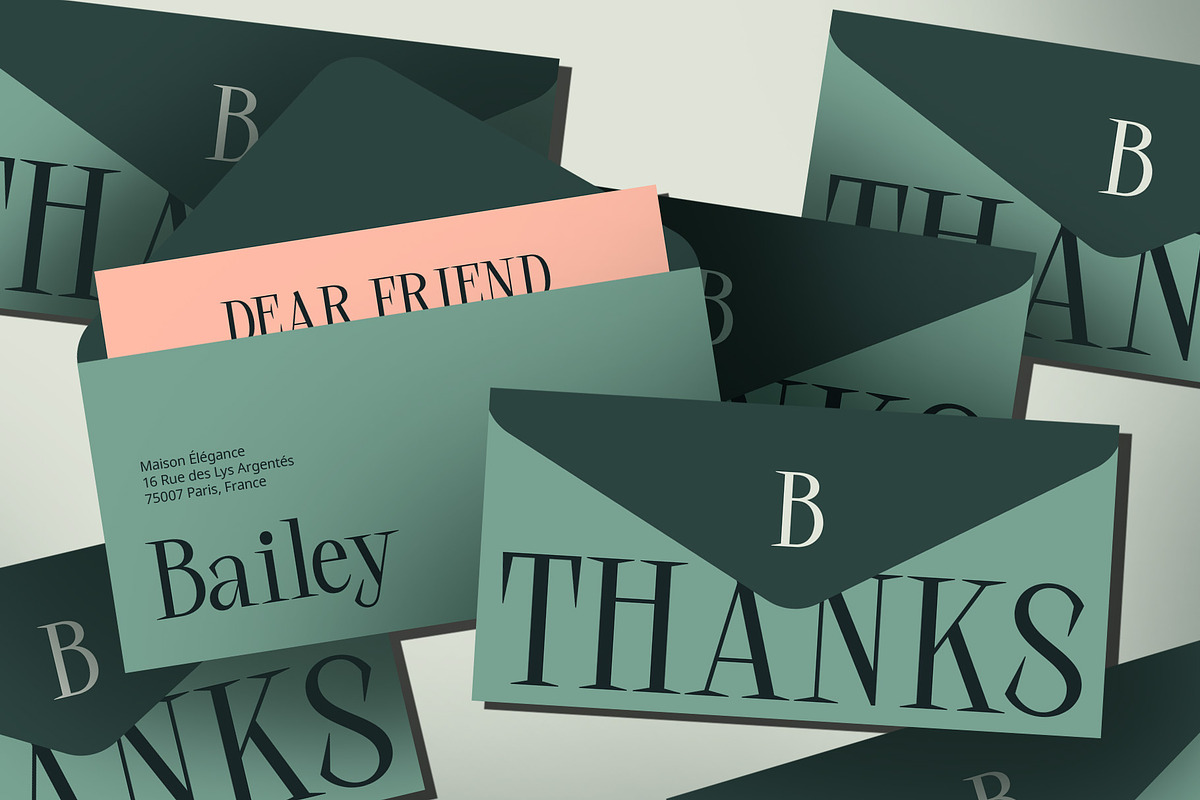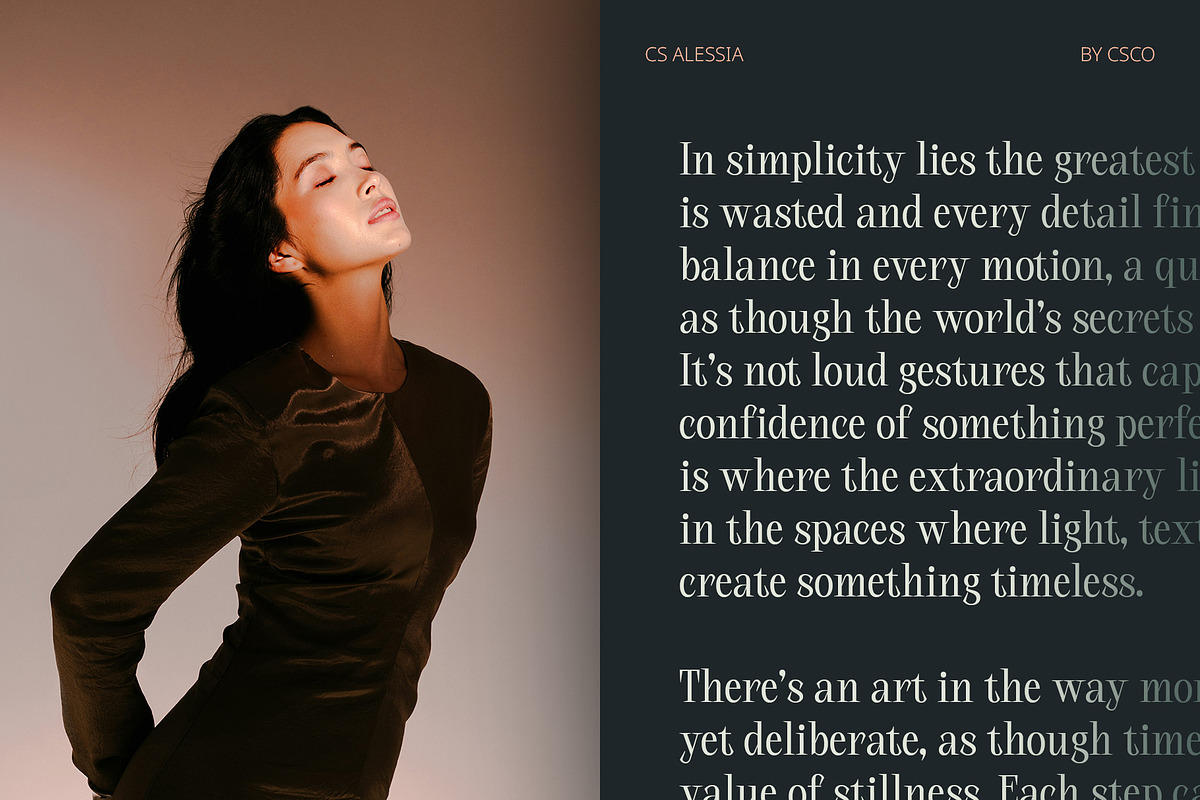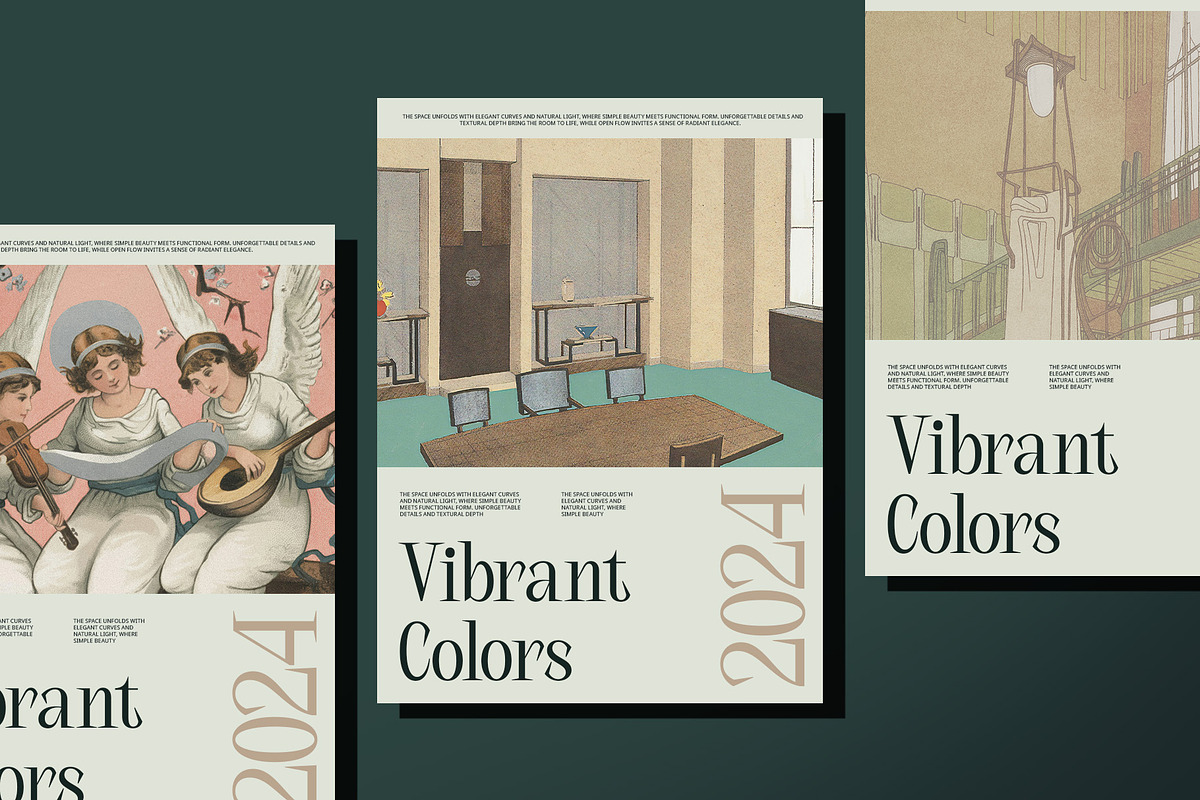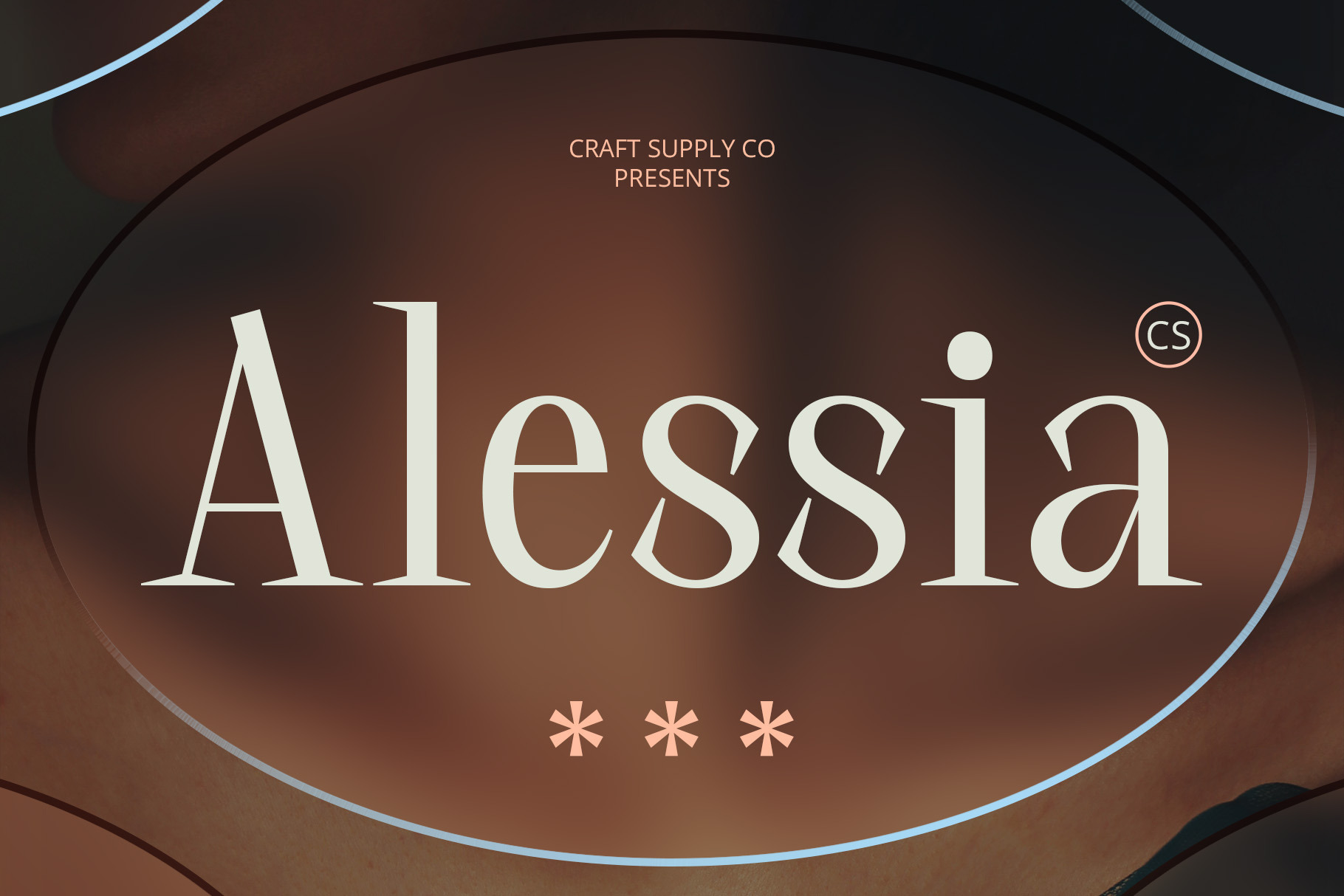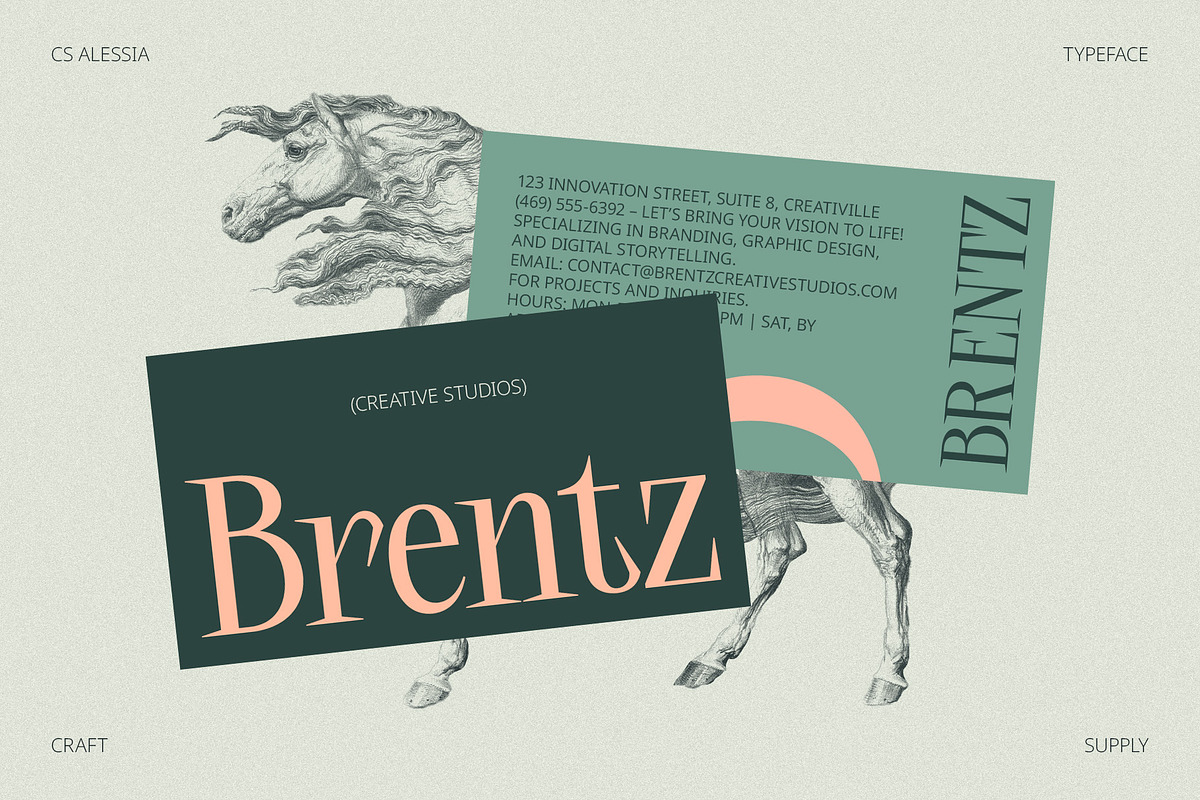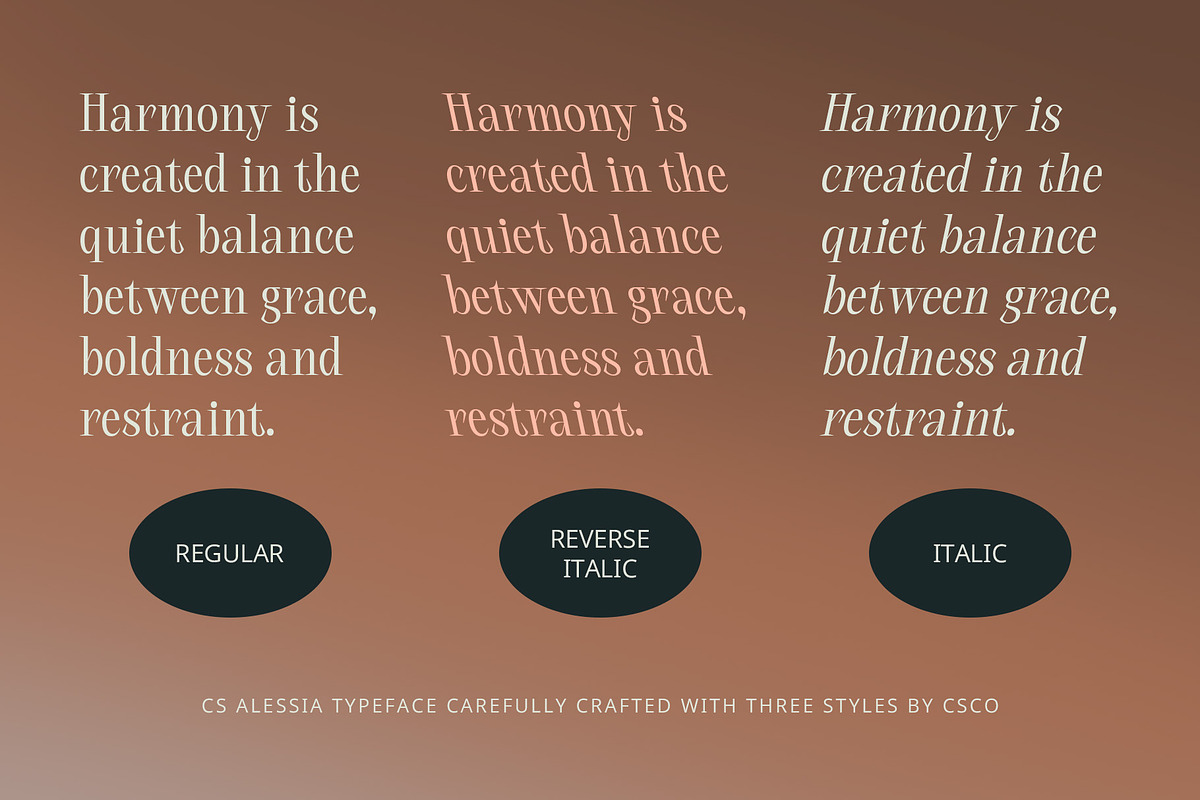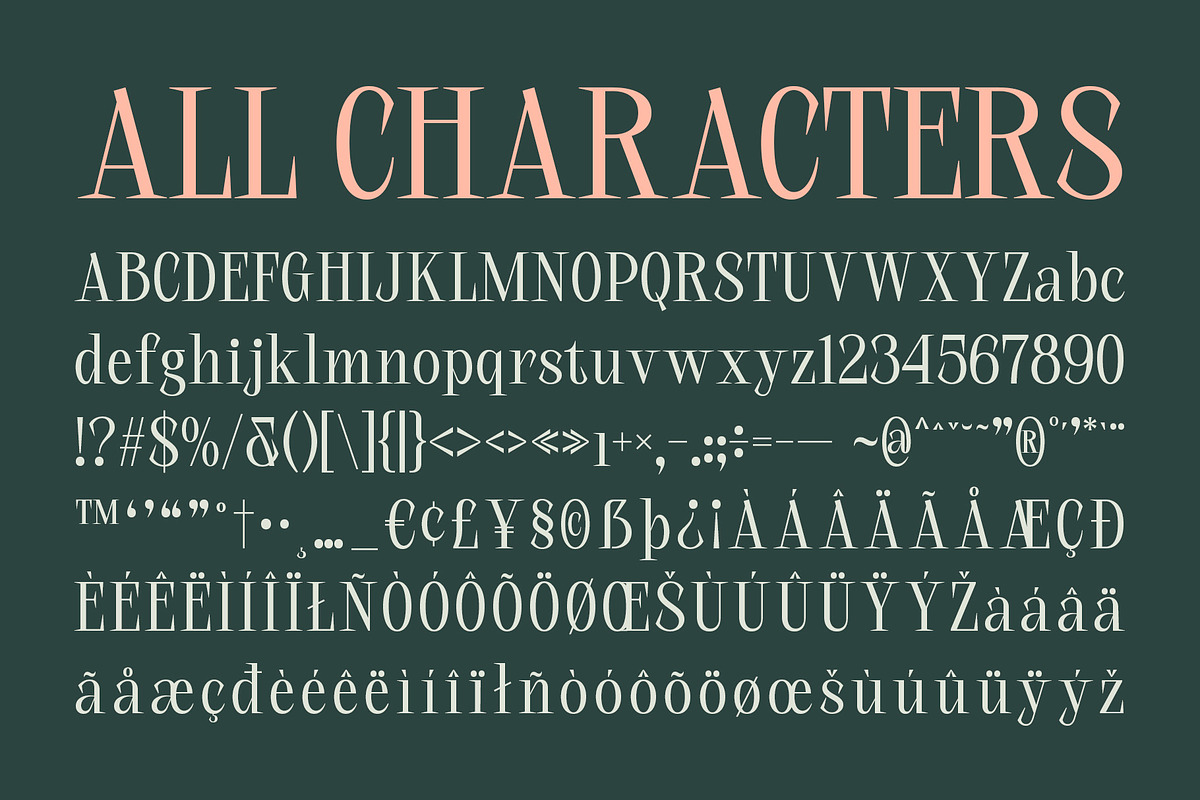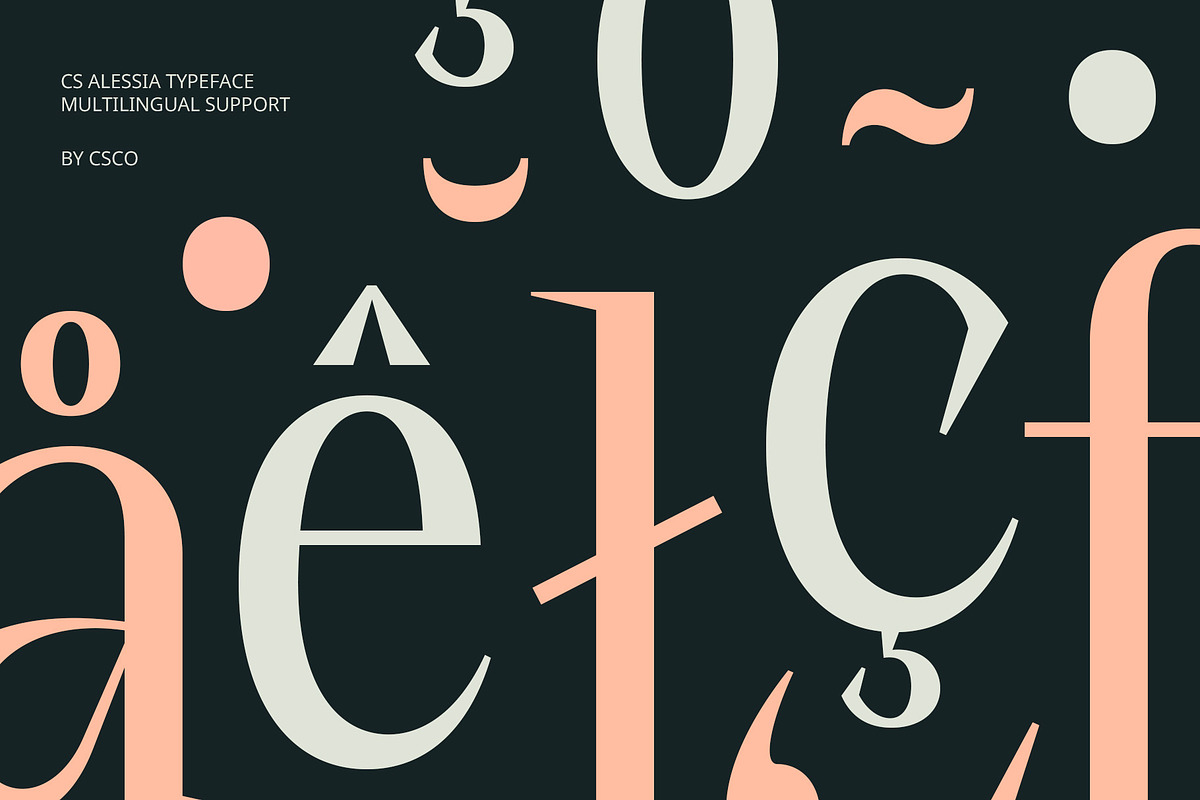
CS Alessia – Elegant Font
CS Alessia – Elegant Font: Timeless Sophistication and Refined Luxury
Modern Serif Font with Long, Refined Serifs CS Alessia is a modern serif font designed to exude elegance and sophistication through its long, refined serifs. The letterforms are meticulously crafted, offering graceful curves and sharp, clean lines that create a refined and luxurious aesthetic. This stylish serif font strikes the perfect balance between modernity and classic beauty, making it an ideal choice for high-end branding, editorial designs, and other luxury projects.
Exuding Graceful and Timeless Beauty The elegant form of CS Alessia ensures that each design it graces is imbued with timeless beauty. Its long serifs are not only visually striking but also elevate the sophistication of any project. The font’s minimalist approach makes it highly versatile, easily adapting to a wide range of design purposes while still maintaining its graceful charm.
Perfect for High-End Branding and Luxury Projects CS Alessia is the quintessential choice for high-end branding, editorial designs, and luxury projects. The font’s refined features and sleek design make it perfect for luxury brand identities, upscale magazine layouts, fashion collections, or any project that demands a sophisticated, polished appearance. Its high contrast and beautifully elongated serifs create a harmonious visual balance, making it easy to read while still capturing attention with its elegant and timeless feel.
- CS Alessia Regular
- CS Alessia Italic
- CS Alessia Reverse Italic